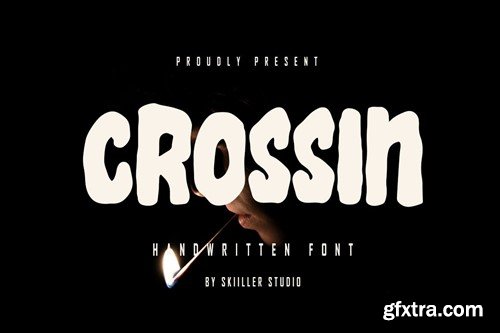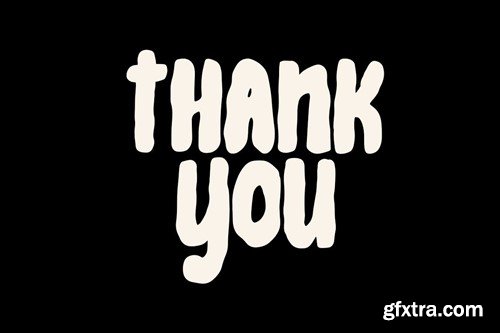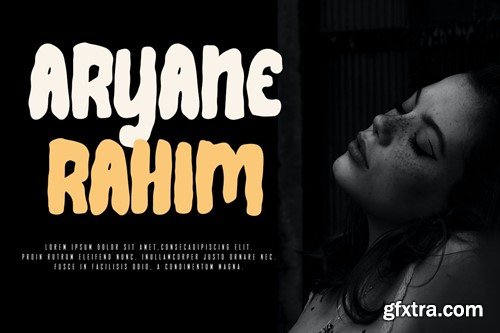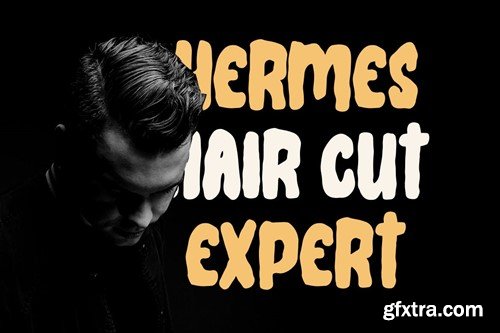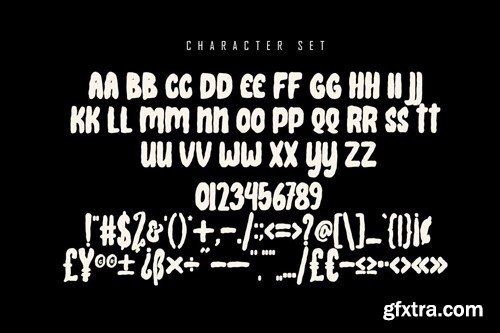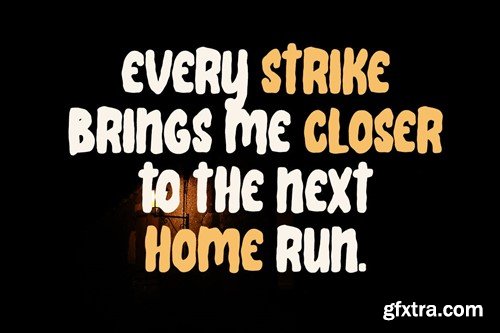
Crossin - Handwritten Font BCT62TE
Crossin - Handwritten Font
Crossin is a modern and brushed handwritten font, crafted to give your headlines and logotype projects a stylish touch. This font reads as strong, confident, and dynamic and can add tons of urban character to your designs.
• Basic Latin Language Support (AÀÁÂÃÄÅCÇDÐEÈÉÊËIÌÍÎÏÑOØÒÓÔÕÖUÙÜÚÛWYÝŸÆß )